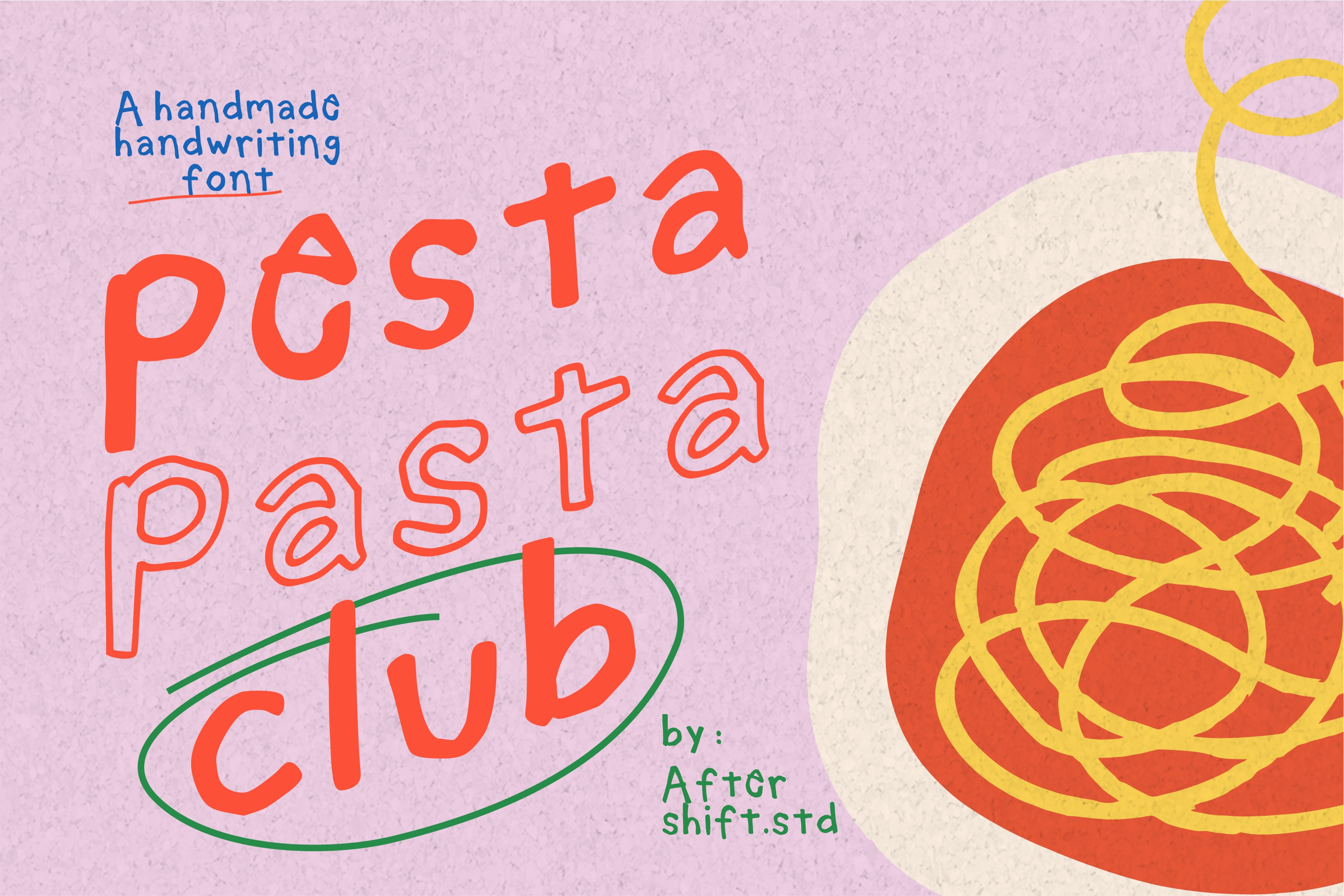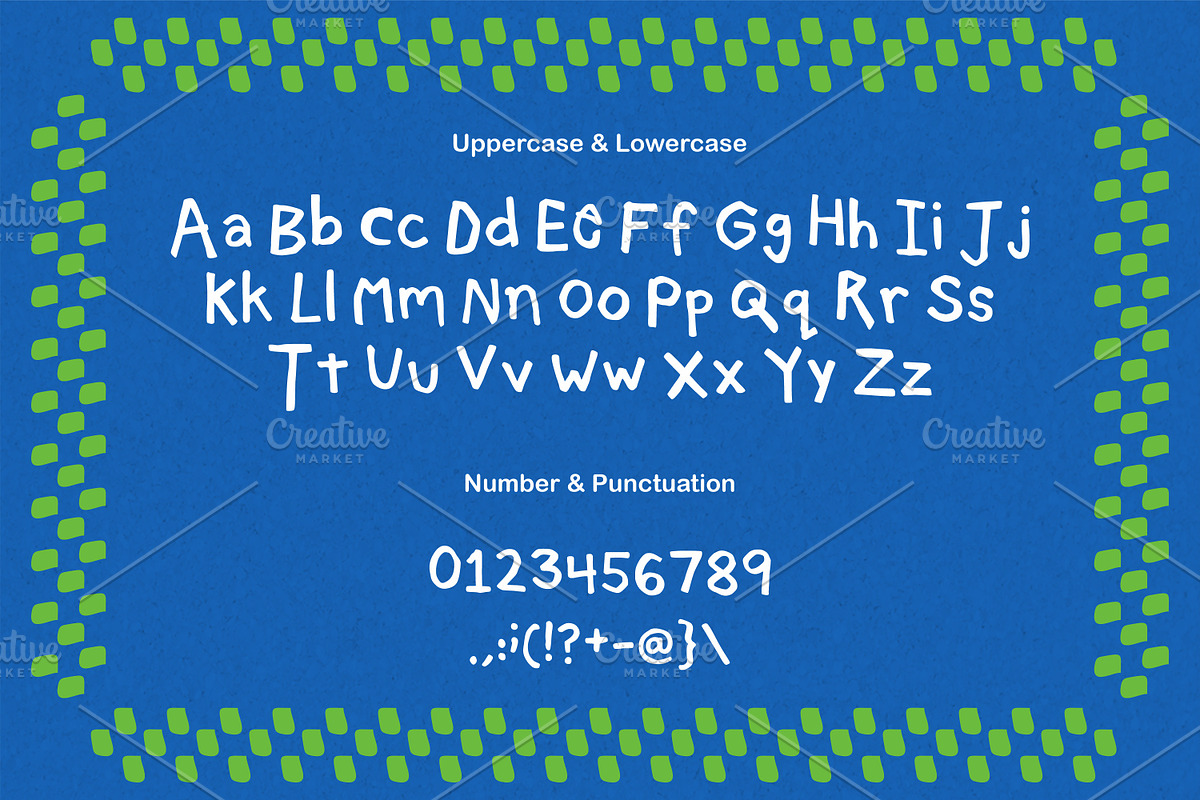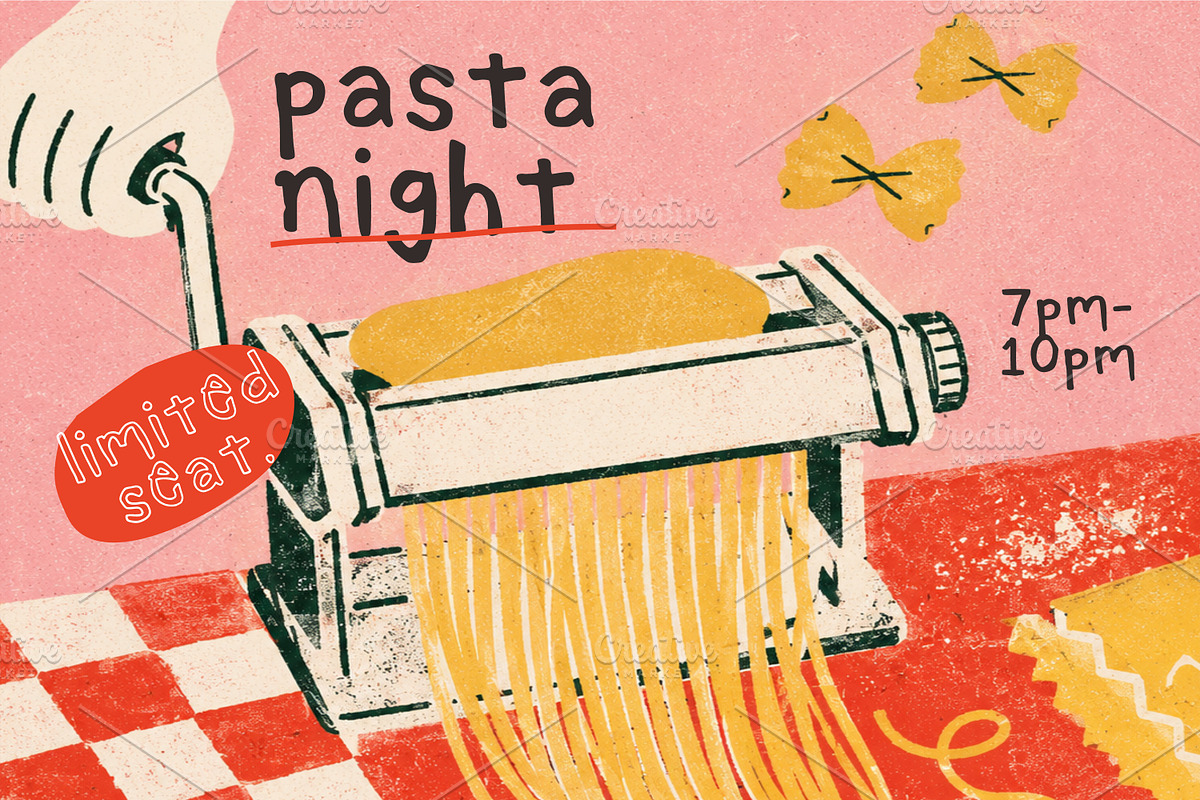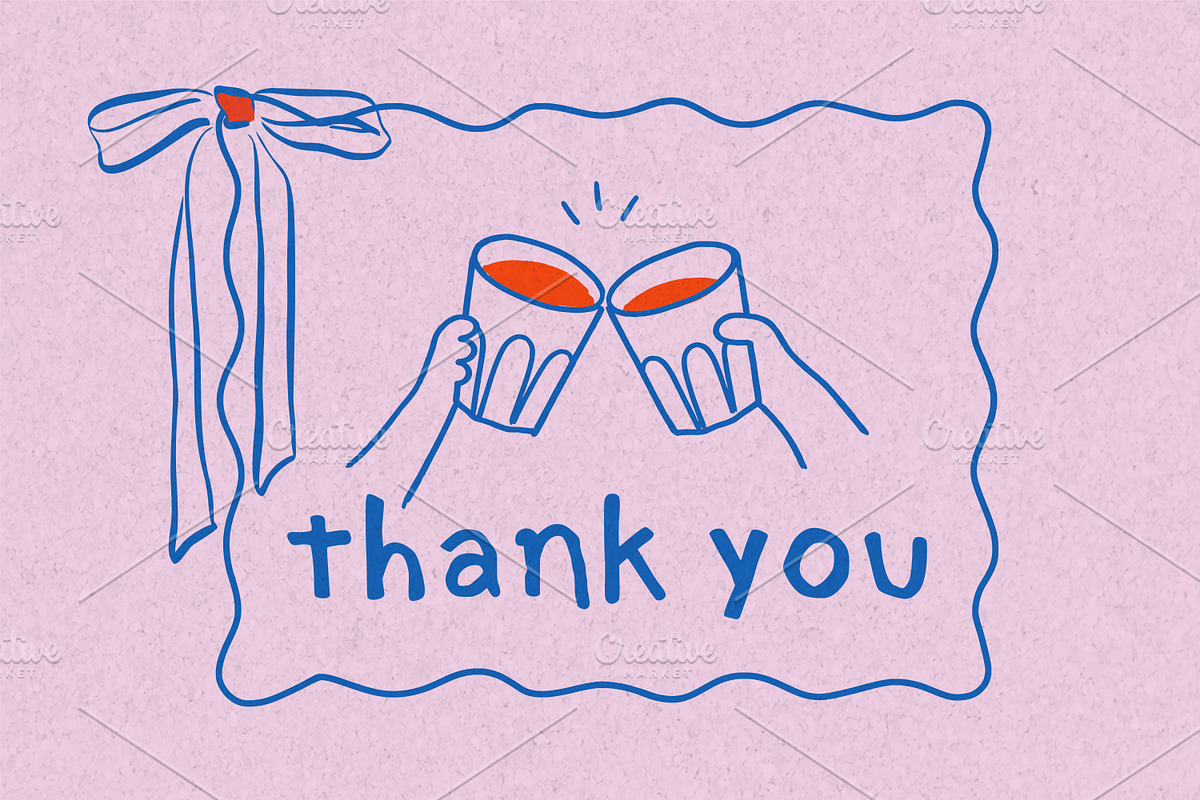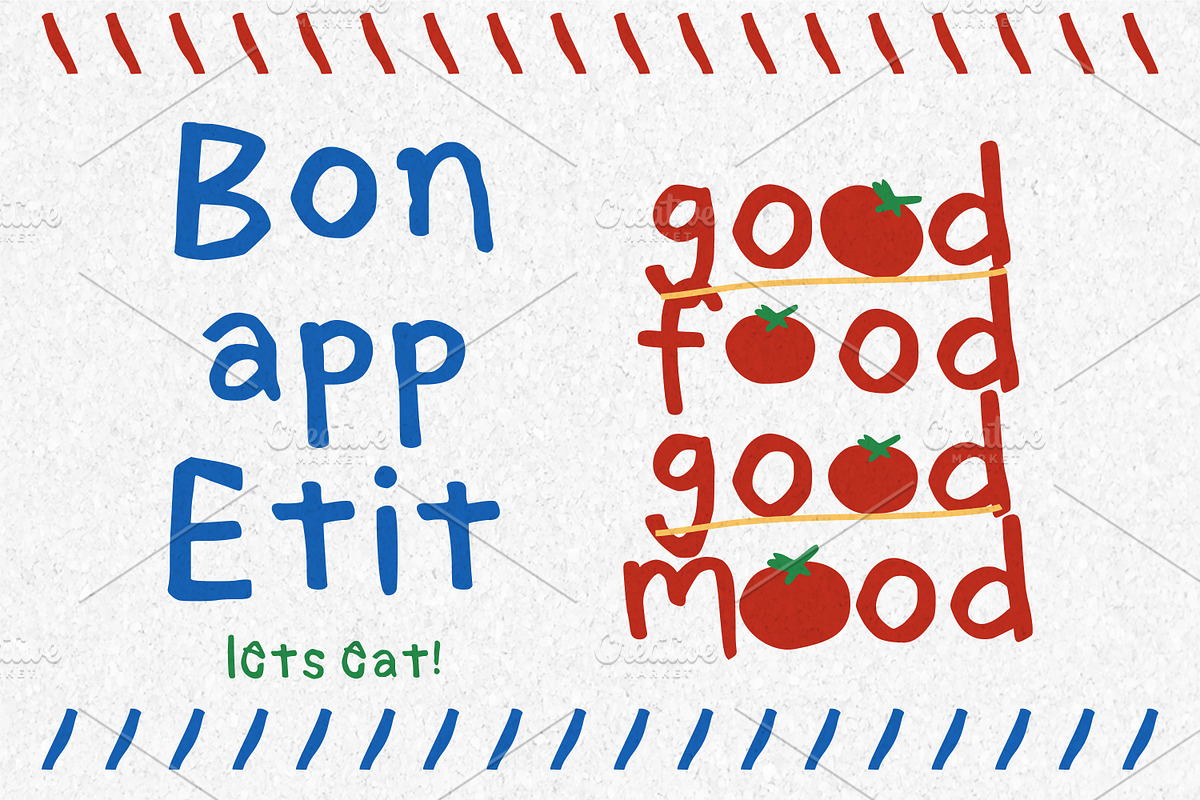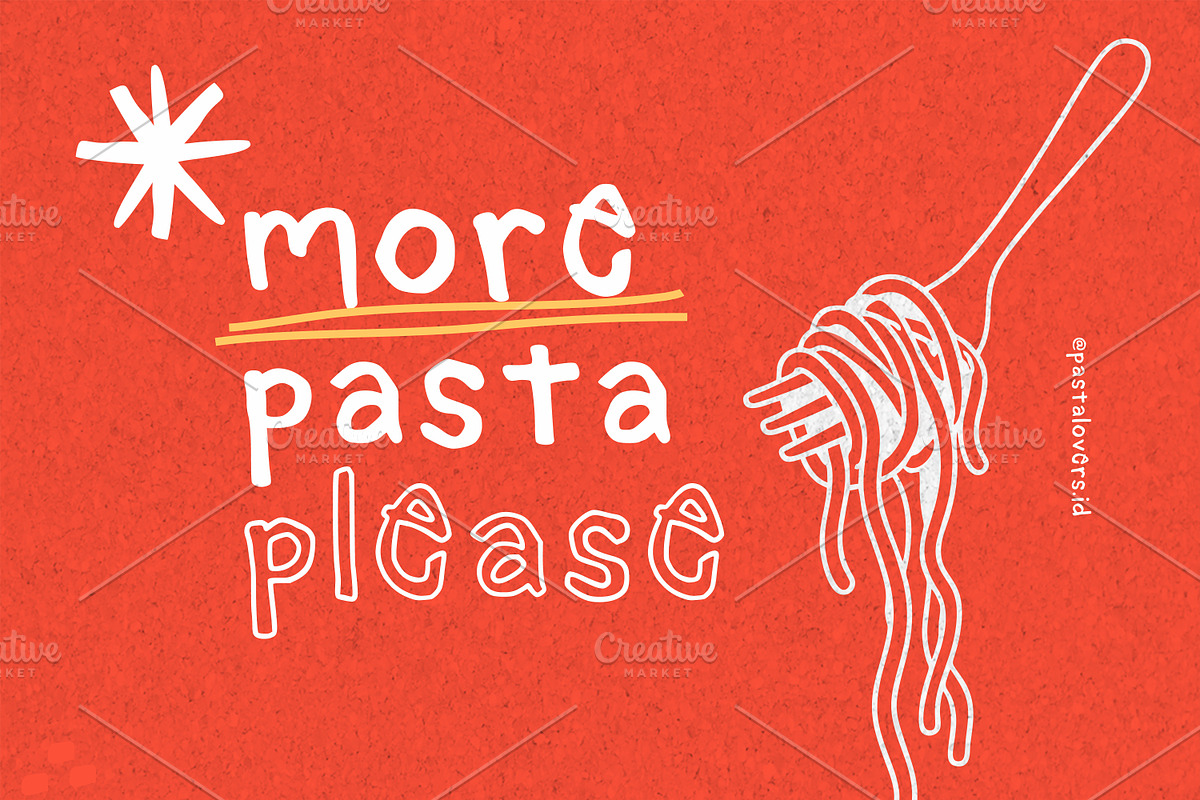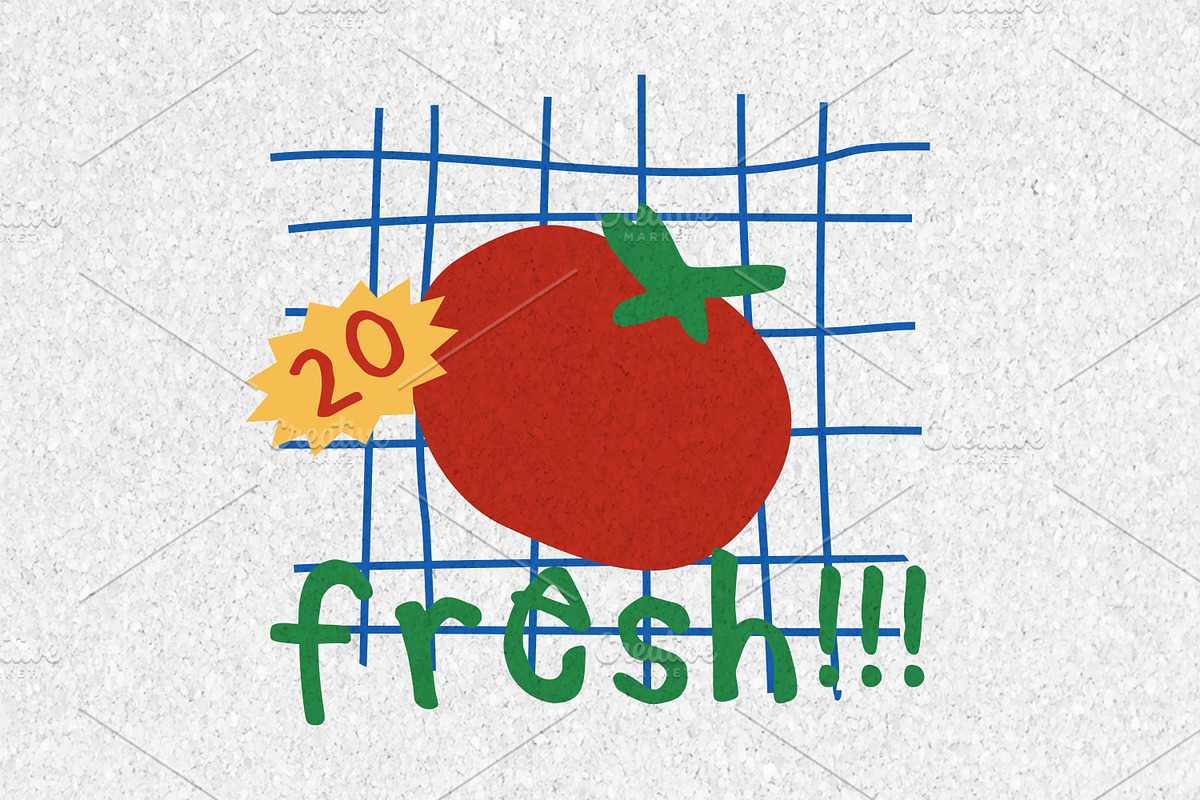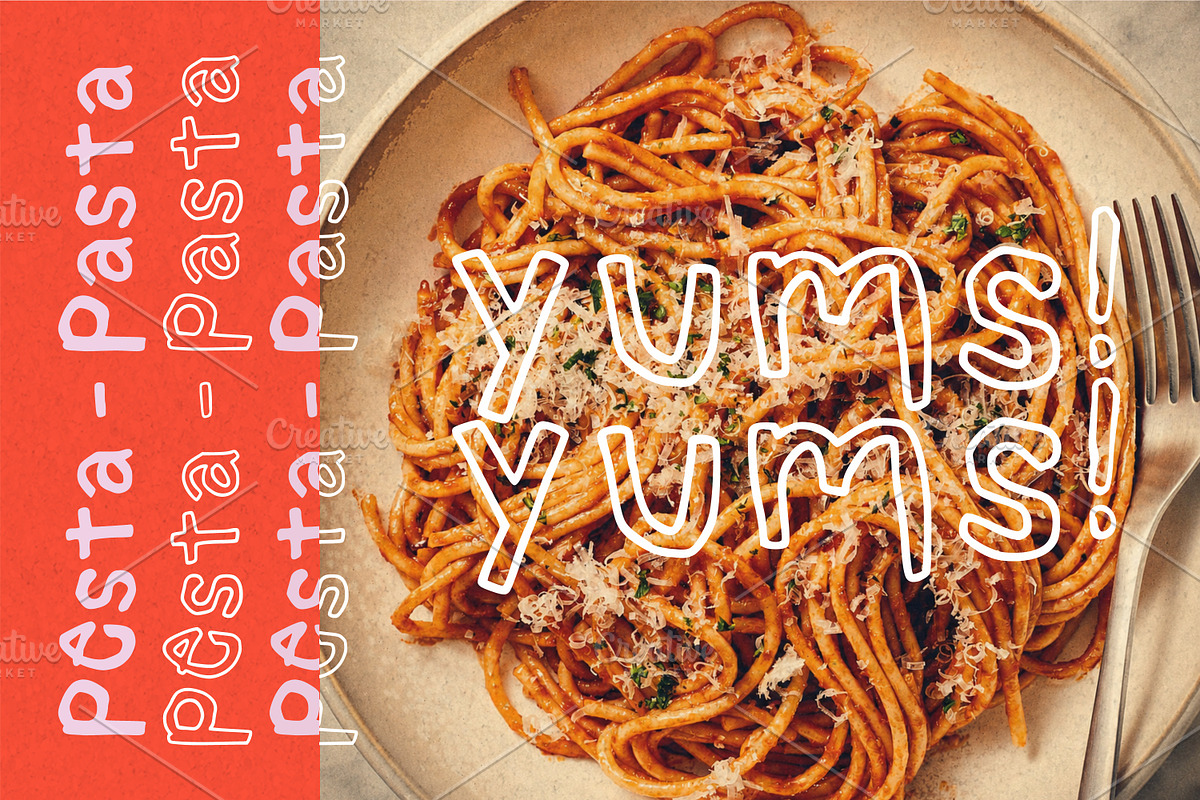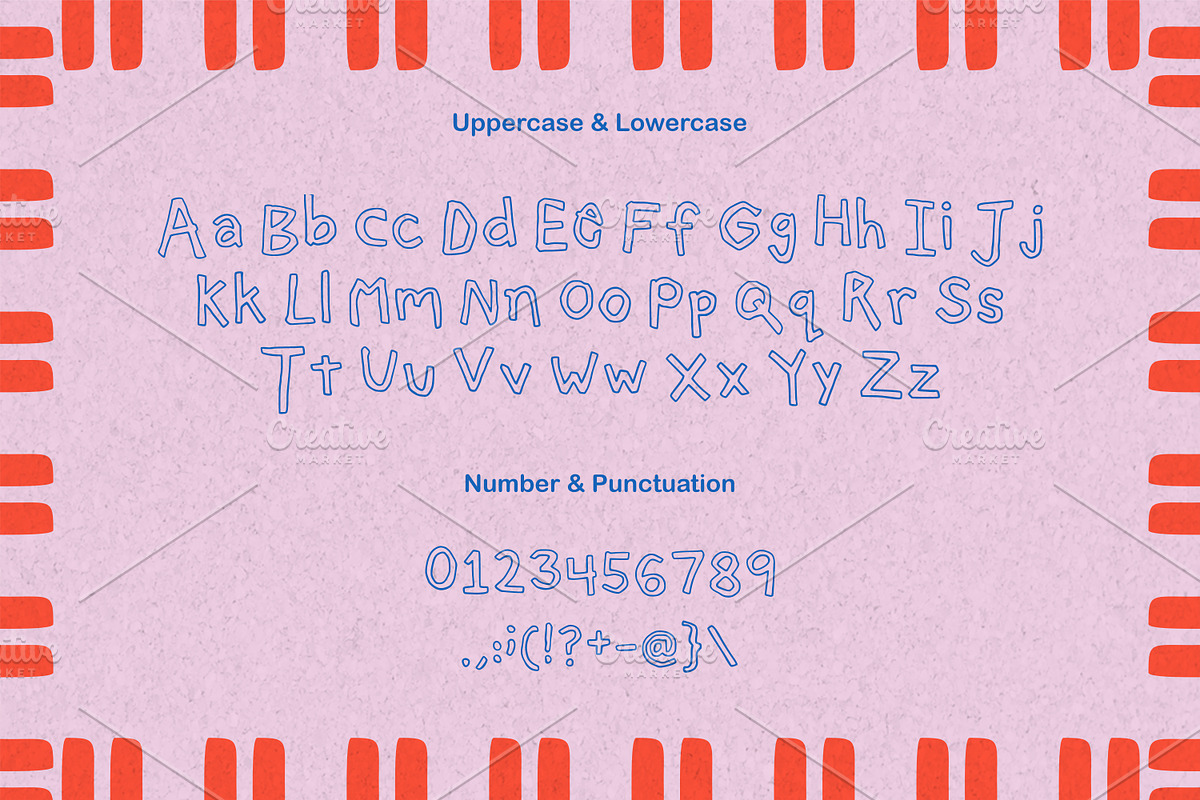
PestaPasta Handwriting Font Family
Bon appetit. Meet Pestapasta, a playful handwriting font suitable for use in various design layouts.
It comes in two variants: regular and outline, making your designs stand out.
It's perfect for bold typography, unique branding, playful packaging, fun greeting cards, standout merchandise, and much more.
You'll find different sets of capital letters in the uppercase and lowercase slots—feel free to mix and match to make your designs look more engaging, natural, and playful.